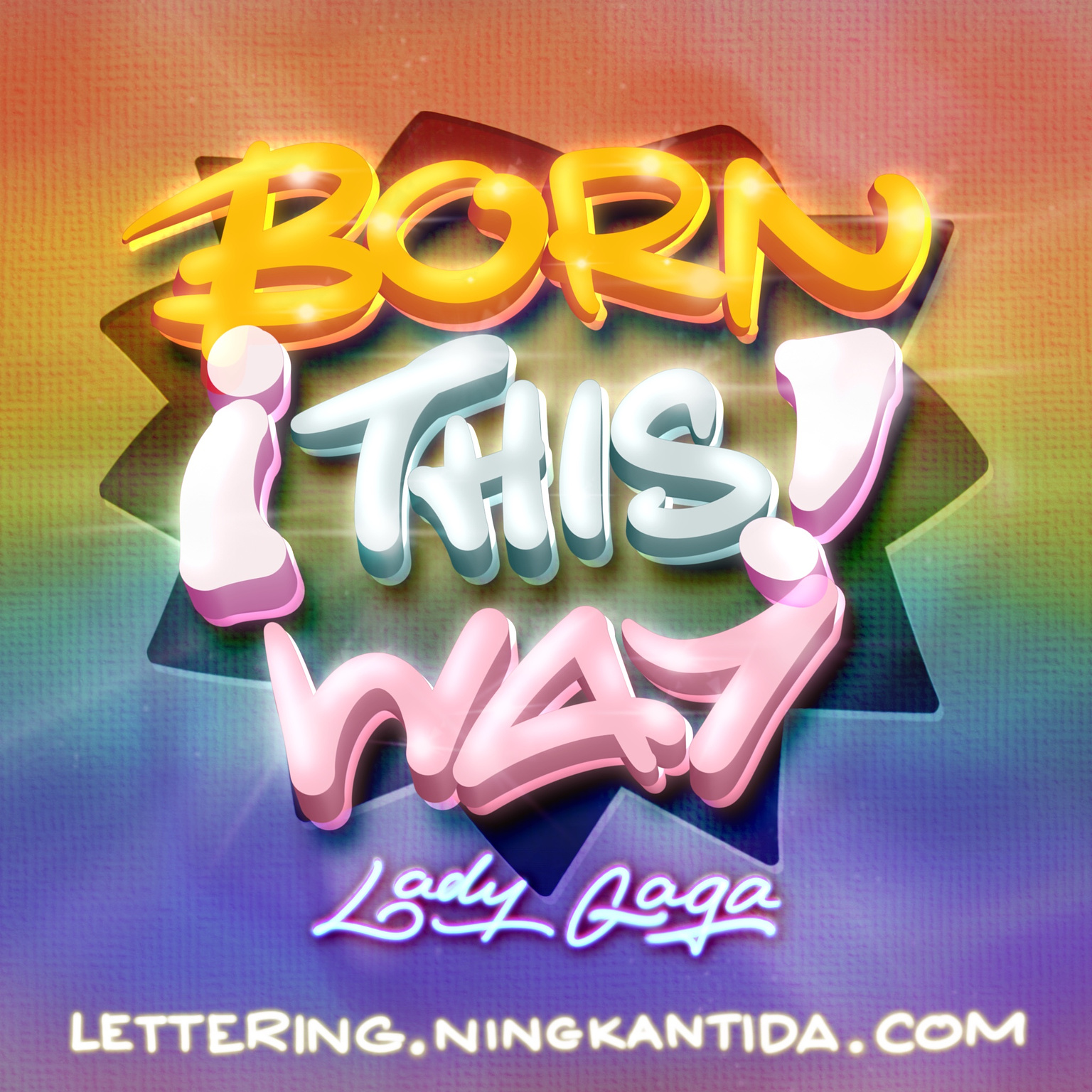
Pride Month Music 12-Born This Way by Lady Gaga
As we approach the end of Pride Month, I’m creating lettering pieces celebrating music related to LGBTQIA+ community. My goal is to expose people to good music and artists while also help bringing the community filled with diversity together, since music is like a universal language that can touch anyone’s heart.
Born This Way is the perfect anthem to close out Pride Month. The song doesn’t just acknowledge humanity’s diversity—it celebrates it wholeheartedly. Each of us is born with a unique identity, but we all have worth just the same.
So, be confident, be kind, and most of all, be yourself. Let’s celebrate life together—right now—and dance to this rhythm of life!
For the lettering, I envision subtle glimmers and sparkles, adding a gentle, luminous touch. This represents how our inherent identities make us shine from within. I’ve softened the Pride Flag colors in the background, blending them with the overall design. This symbolizes how the lines that separate us are beautifully blurred, reflecting the shared humanity that unites us all.